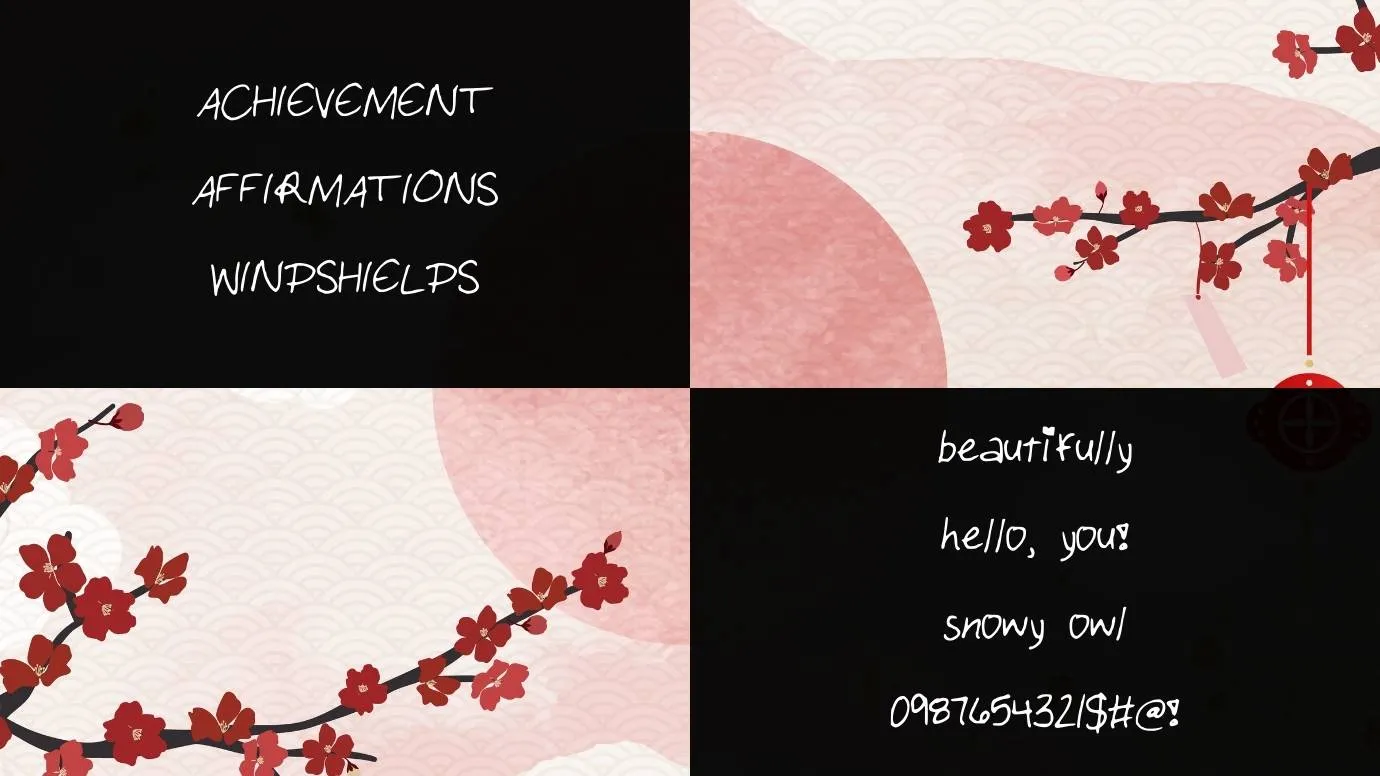
Paper Girl Font was designed by Jim Parkinson in 1993. The font is based on the handwriting of his then-girlfriend, now wife. It has a playful, yet elegant feel.
It is often used for invitations and other formal documents. However, it can also be used for more casual purposes.
Jim Parkinson is a well-known typeface designer. He has designed many other popular fonts, such as Zapf Chancery and Helvetica. it has a keen future.
This typeface is a classic handwritten font that has a playful yet elegant feel. It is perfect for invitations and other formal documents. Jim Parkinson, the designer, based the font on the handwriting of his then-girlfriend, now wife.
Paper Girl texture is one of many fonts designed by Parkinson. Others include Zapf Chancery and Helvetica.
You can easily utilize it for making unique, customized gift tags for presents during the holiday season. A similar font of this typeface is right signature font. This font would also be perfect to use on Save the Date cards or invitations for a bridal shower or bachelorette party.
Another great way to use this font is by creating your own labels for mason jars filled with homemade jams or other goodies.
It was designed by Jim Parkinson in 1993. The font is based on the handwriting of his then-girlfriend, now wife.
This attractive style includes several elements, such as capital and lowercase letters, numbers, punctuation, characters, special symbols, glyphs, and language support.
It is a classic handwritten font that has a playful yet elegant feel. It was designed by Jim Parkinson in 1993 and is based on the handwriting of his then-girlfriend, now wife.
It can be used for invitations and other formal documents. However, it can also be used for more casual purposes, such as gift tags or labels.
Zapf Chancery and Helvetica are two other popular fonts designed by Jim Parkinson.
The Paper Girl texture can be utilized for making unique, customized gift tags for presents during the holiday season. This font would also be perfect to use on Save the Date cards or invitations for a bridal shower or bachelorette party.